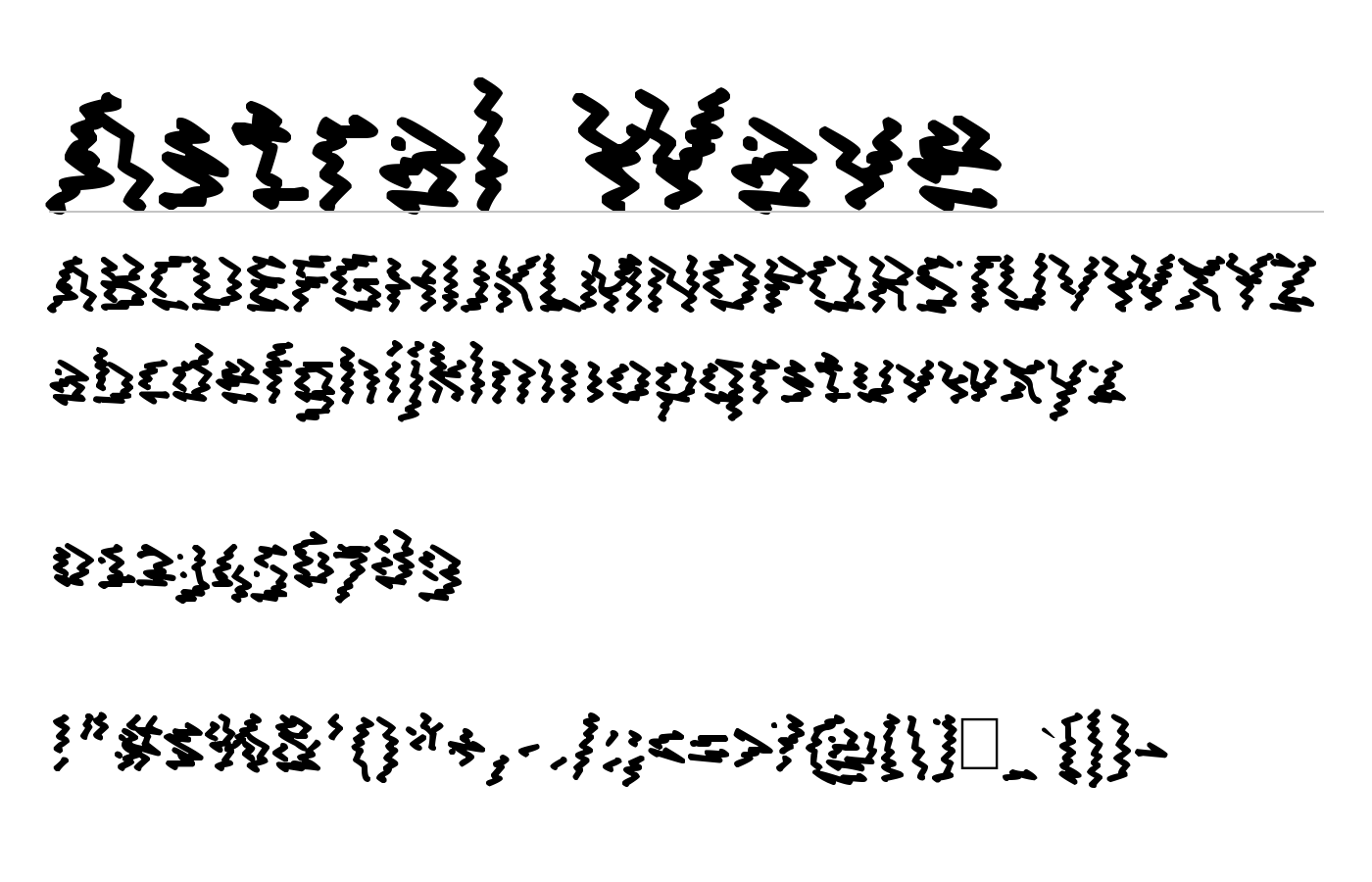
Astral Wave is an eye-catching display font with a unique, jagged wave-like texture that gives it a dynamic and energetic feel. Its bold weight and irregular, highly stylized letterforms make it perfect for creative projects that want to stand out with a futuristic or edgy vibe. This font works best in logos, posters, and headlines where its distinctive character can add a strong visual impact.
Astral Wave Font
About Astral Wave Font